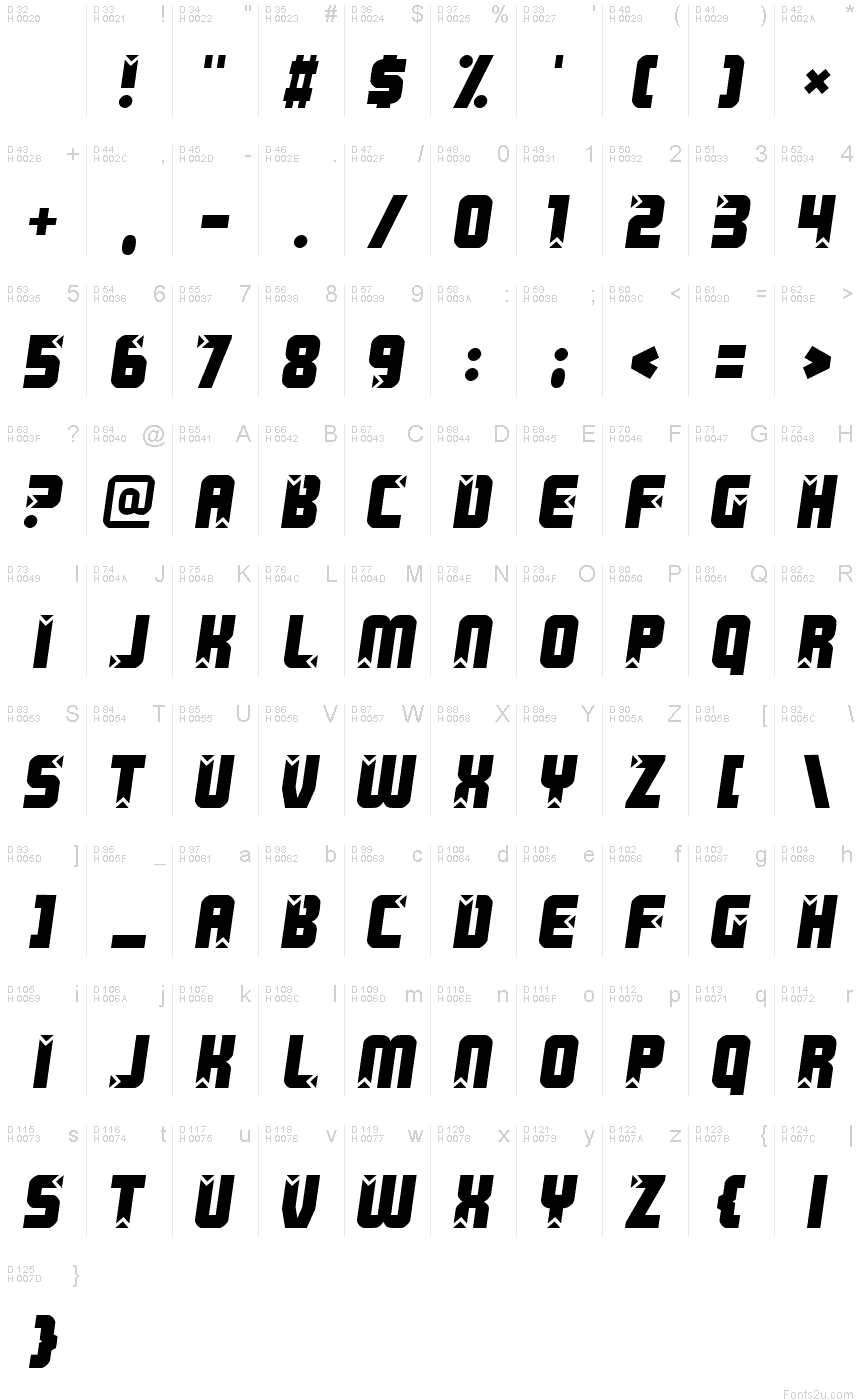
Killer boots
Killer Boots font by Jakob Fischer is a free techno decorative display typeface that hits like a riff of distorted guitar. Heavy, forward-leaning letters slice across the line with sharp diagonals and arrow‑like cutouts that feel fast, aggressive, and slightly unruly. The chunky shapes stay bold and legible, while the slanted stance and tight rhythm pump in a sense of motion that’s hard to ignore.
Using Killer Boots, you get a headline voice that screams for posters, gaming overlays, esports branding, sci‑fi book covers, movie titles, merch graphics, and high-energy social banners. This free font really shines when you set it big and give it room to breathe, then pair it with a clean, neutral sans for body copy so the wild angles stay the star.